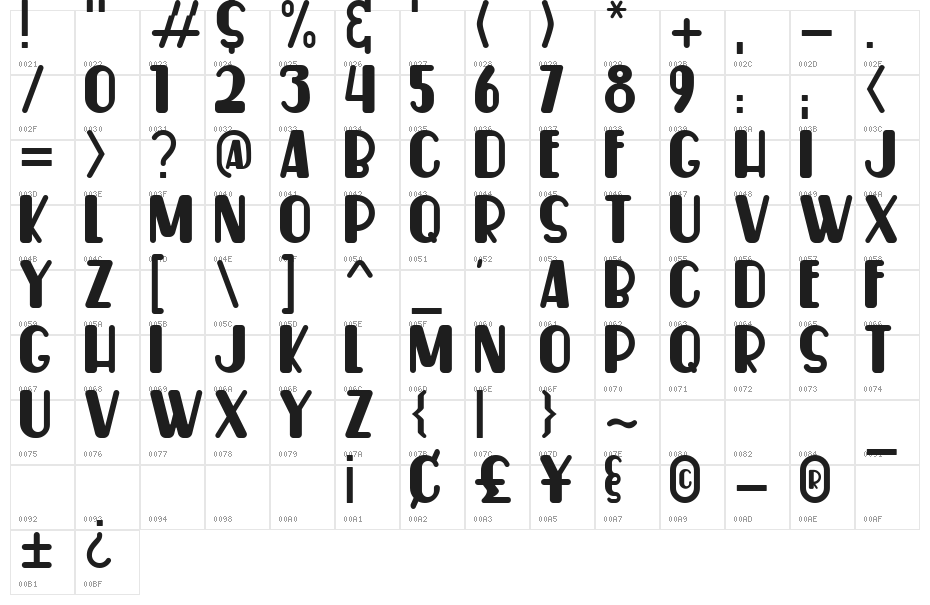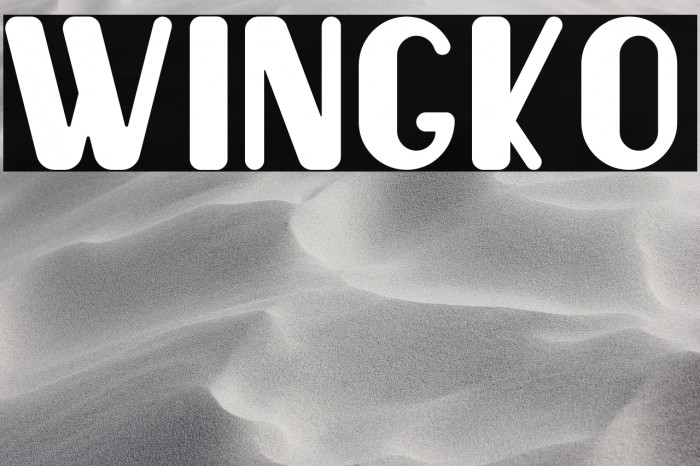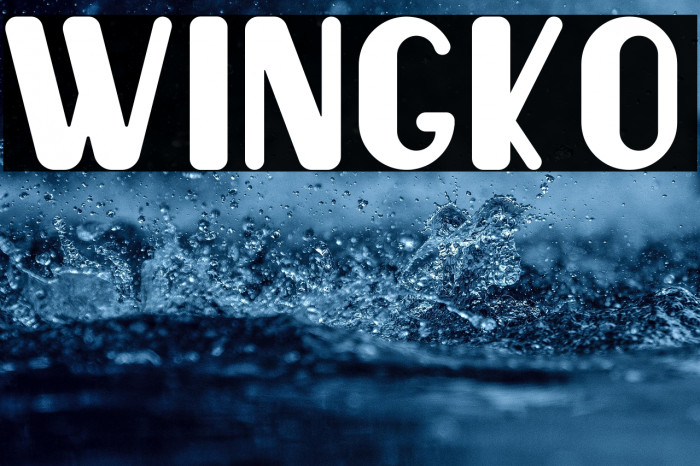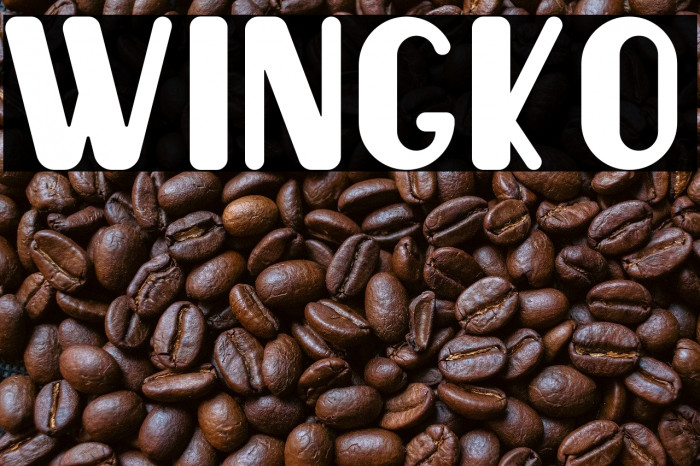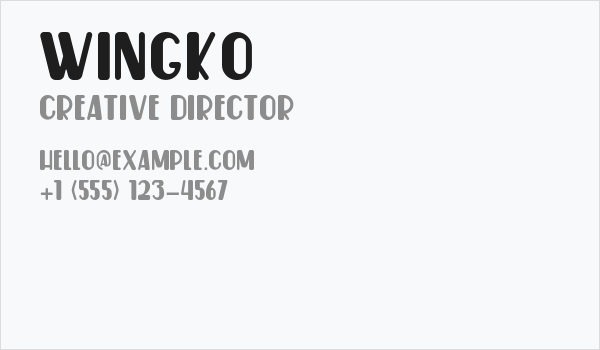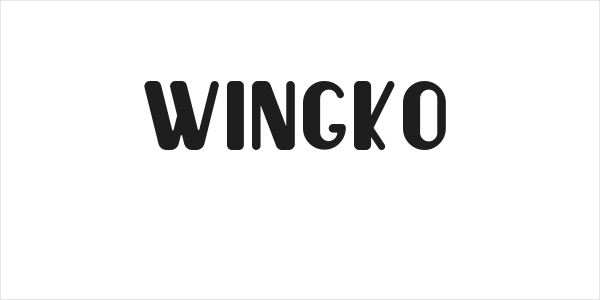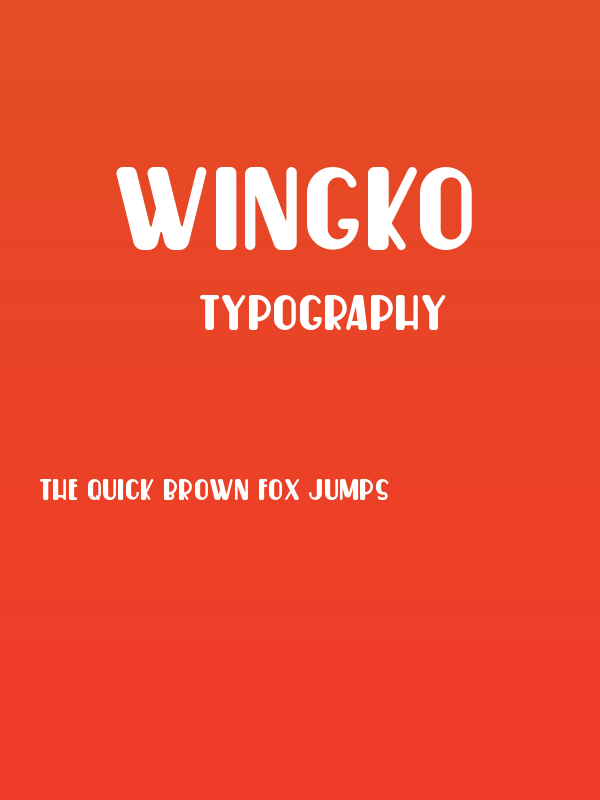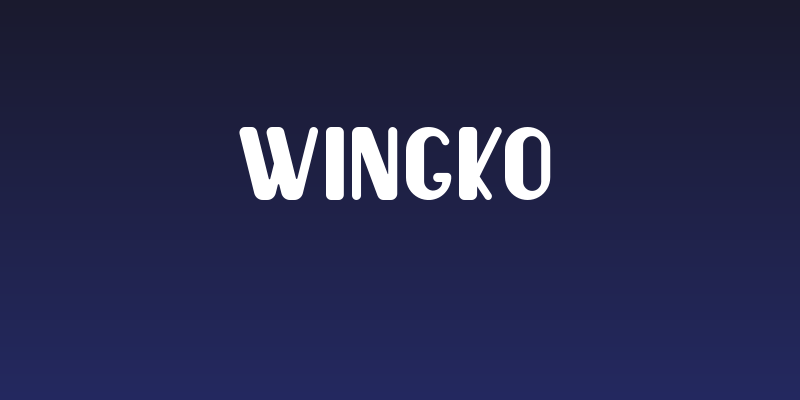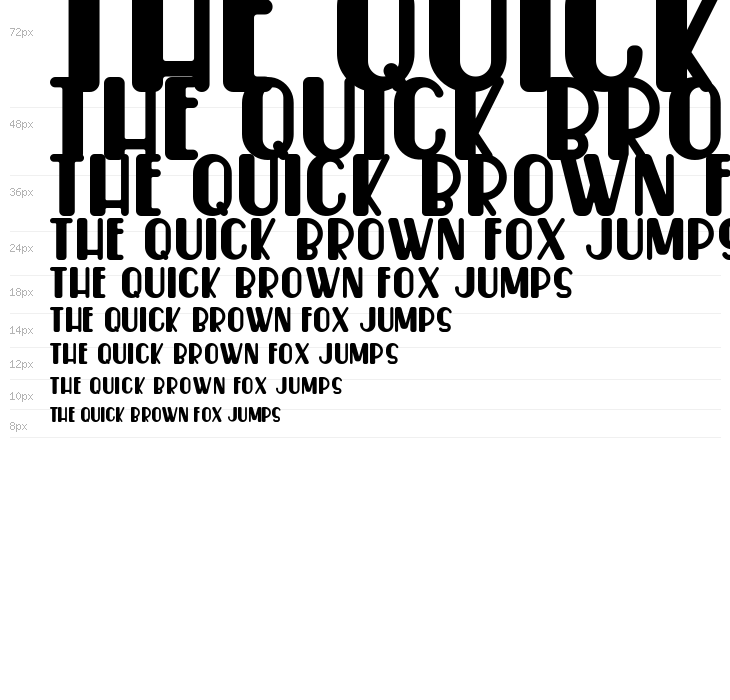
Wingko Font
Wingko Description
This font features a bold and rounded style, characterized by its thick strokes and smooth curves. The letters are evenly spaced, providing a clean and modern appearance. The uppercase and lowercase letters maintain a consistent weight, contributing to a cohesive look. Numbers are designed with the same boldness, ensuring readability and uniformity across different uses. Special characters are included, matching the overall style with rounded edges and a bold presence. This font is suitable for creating impactful headlines and eye-catching designs.
| Proposed Projects | Ideal for branding, posters, headlines, and any design requiring a strong visual impact. |